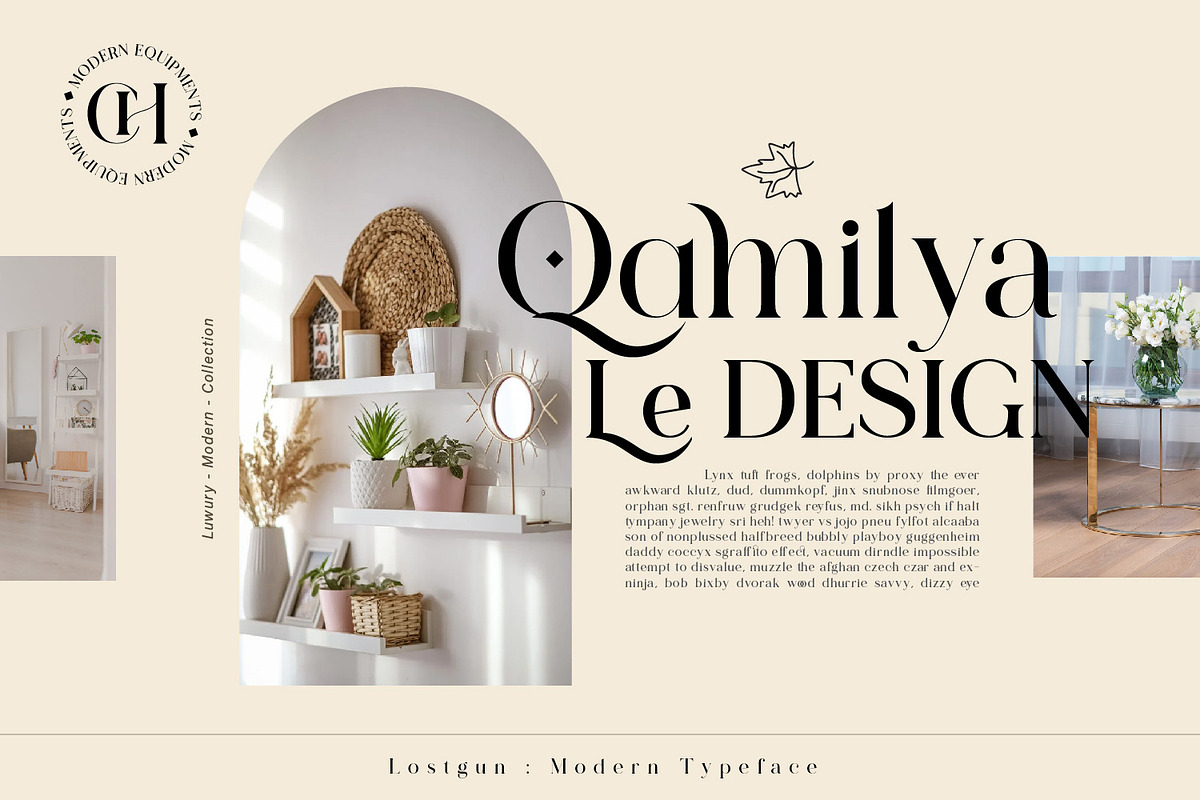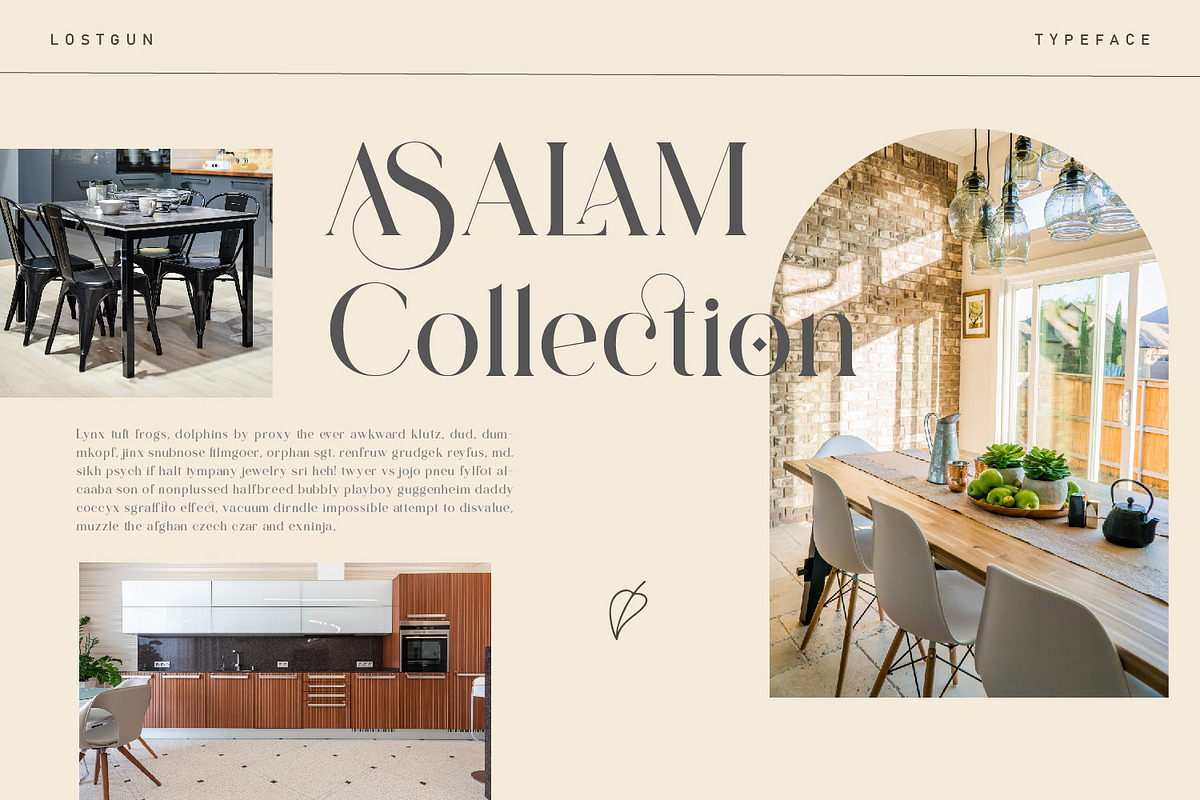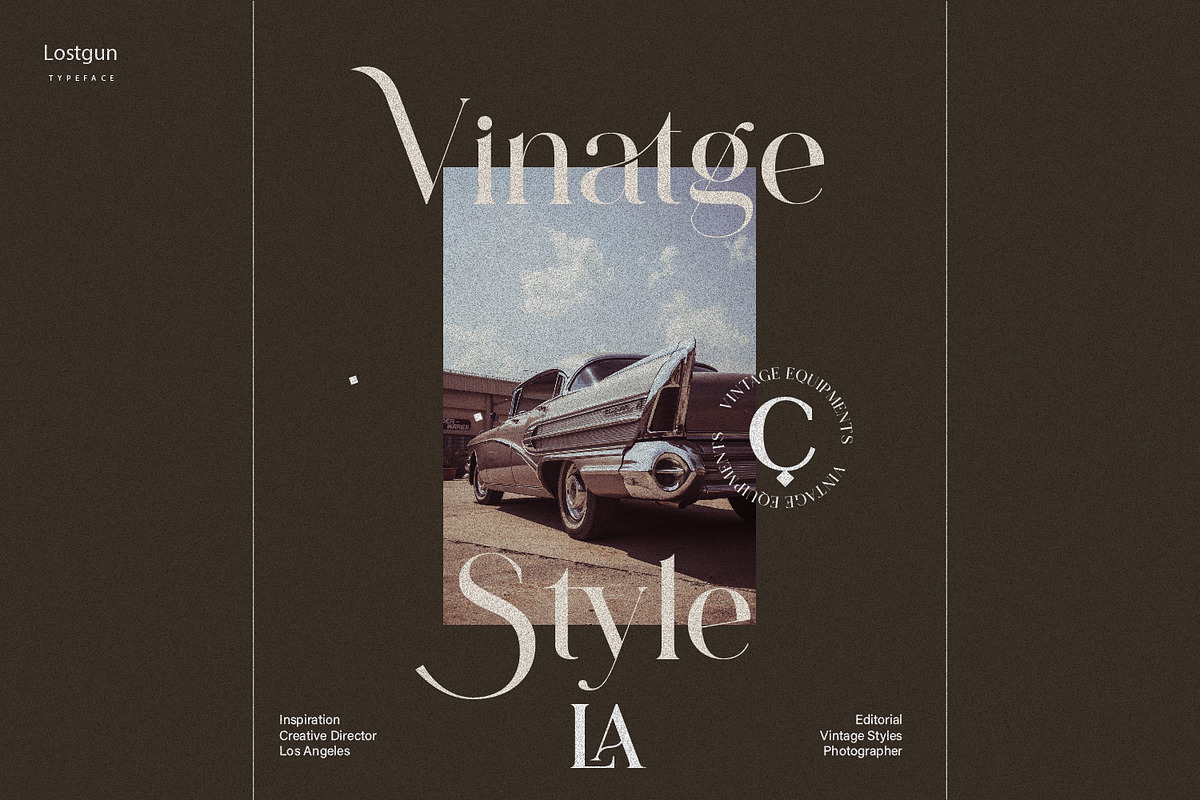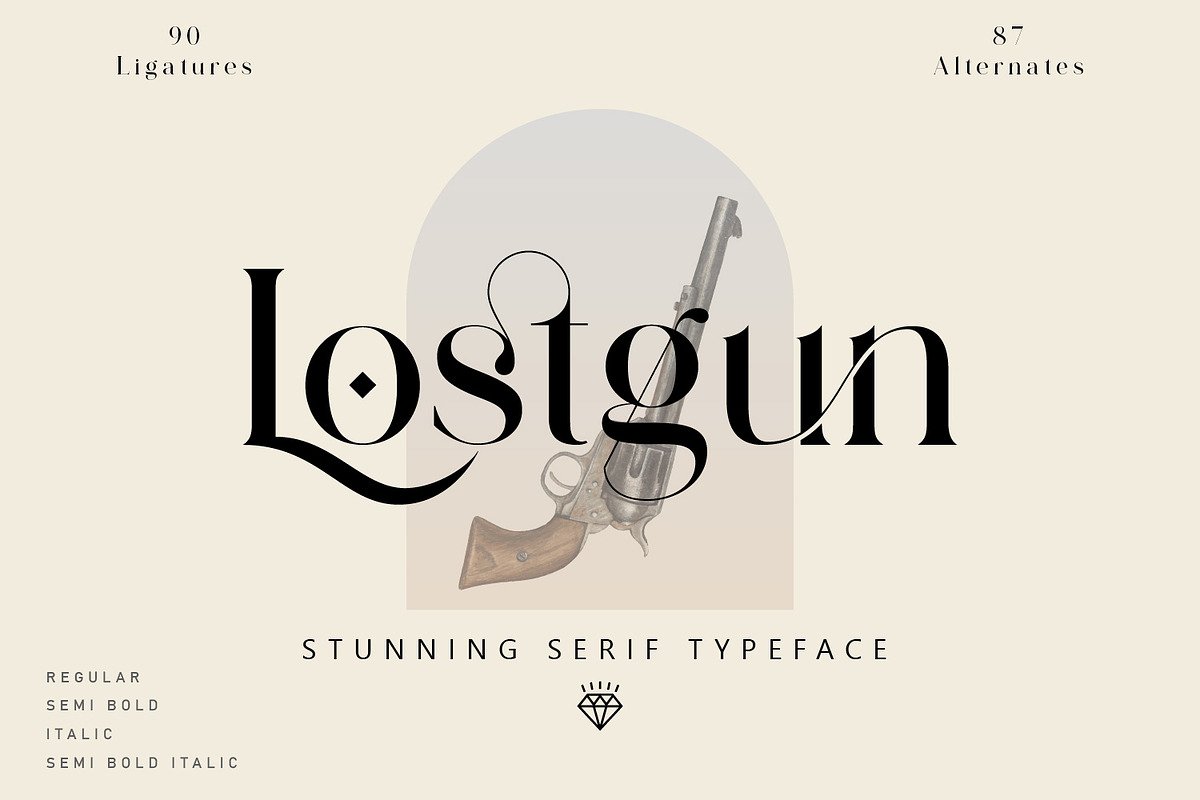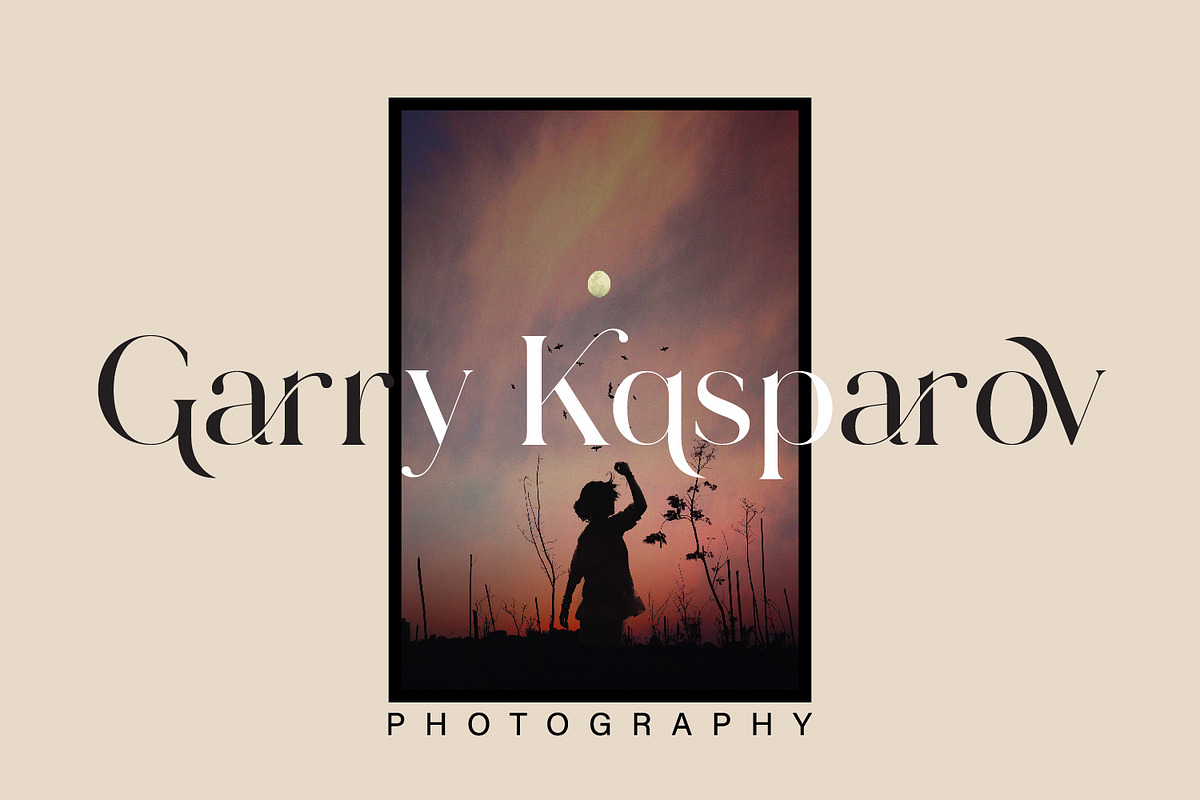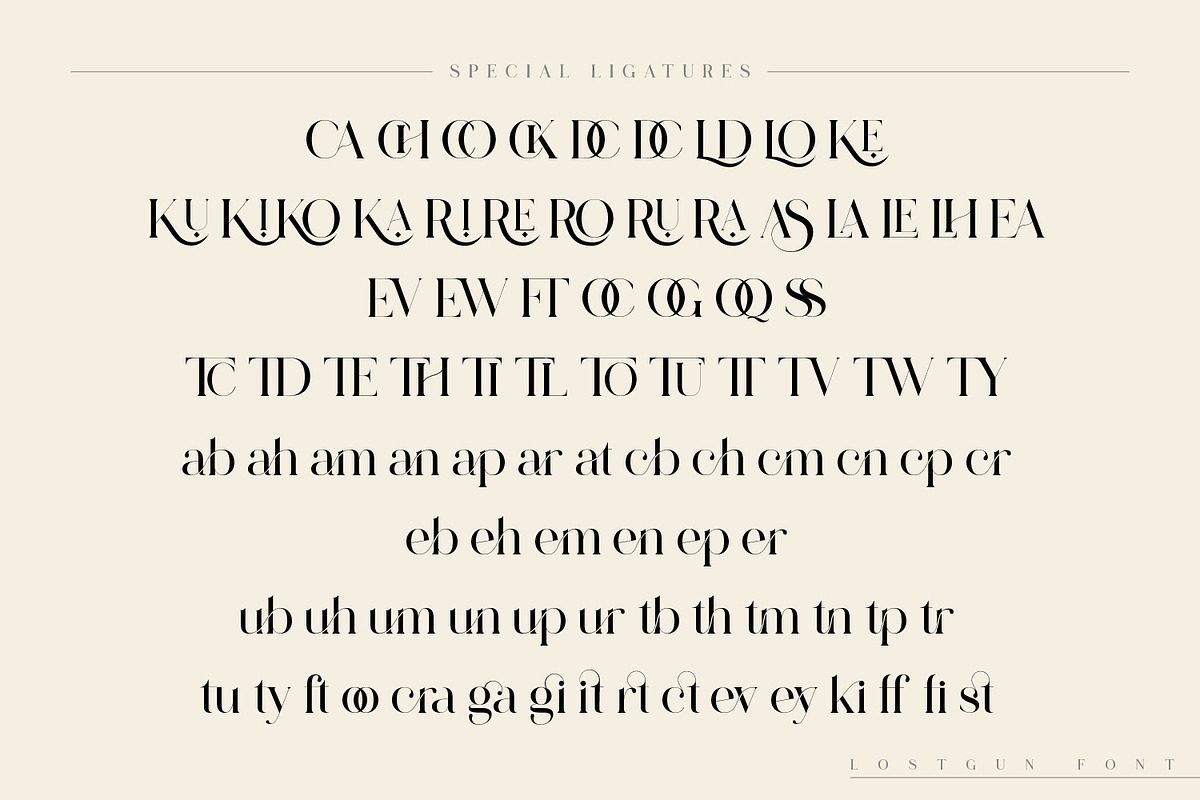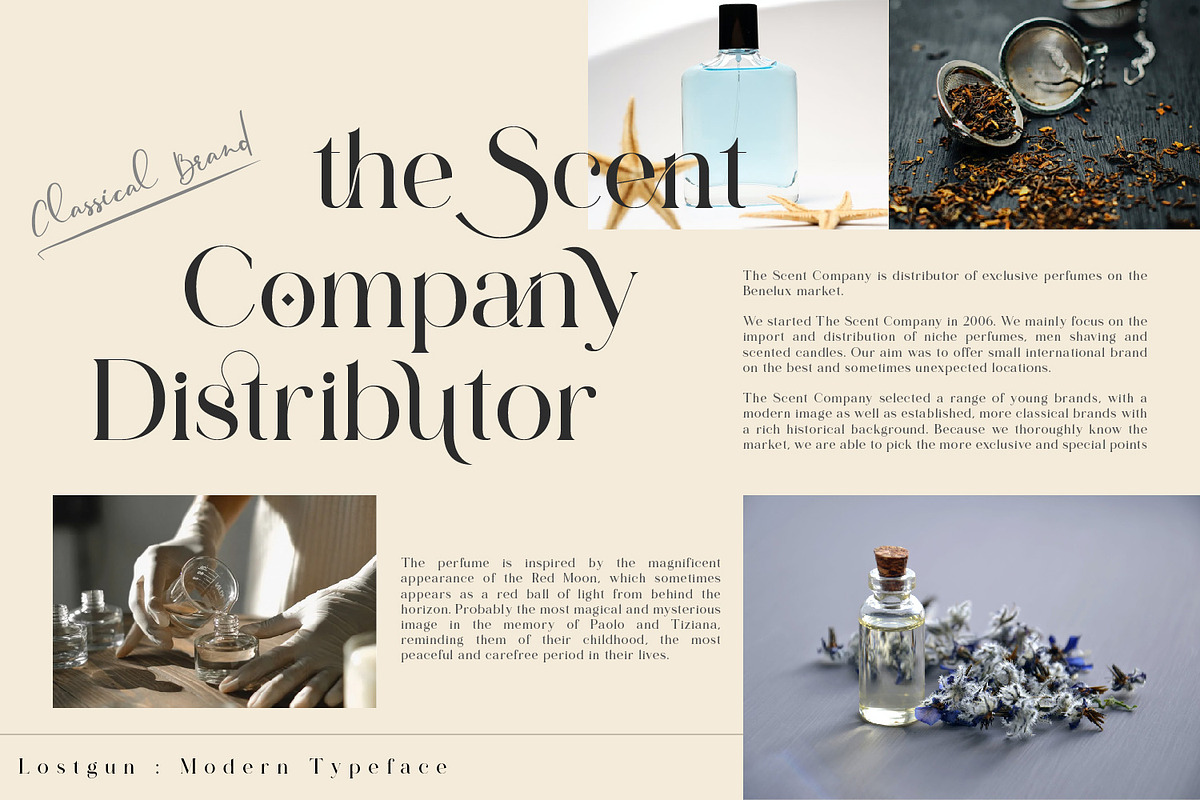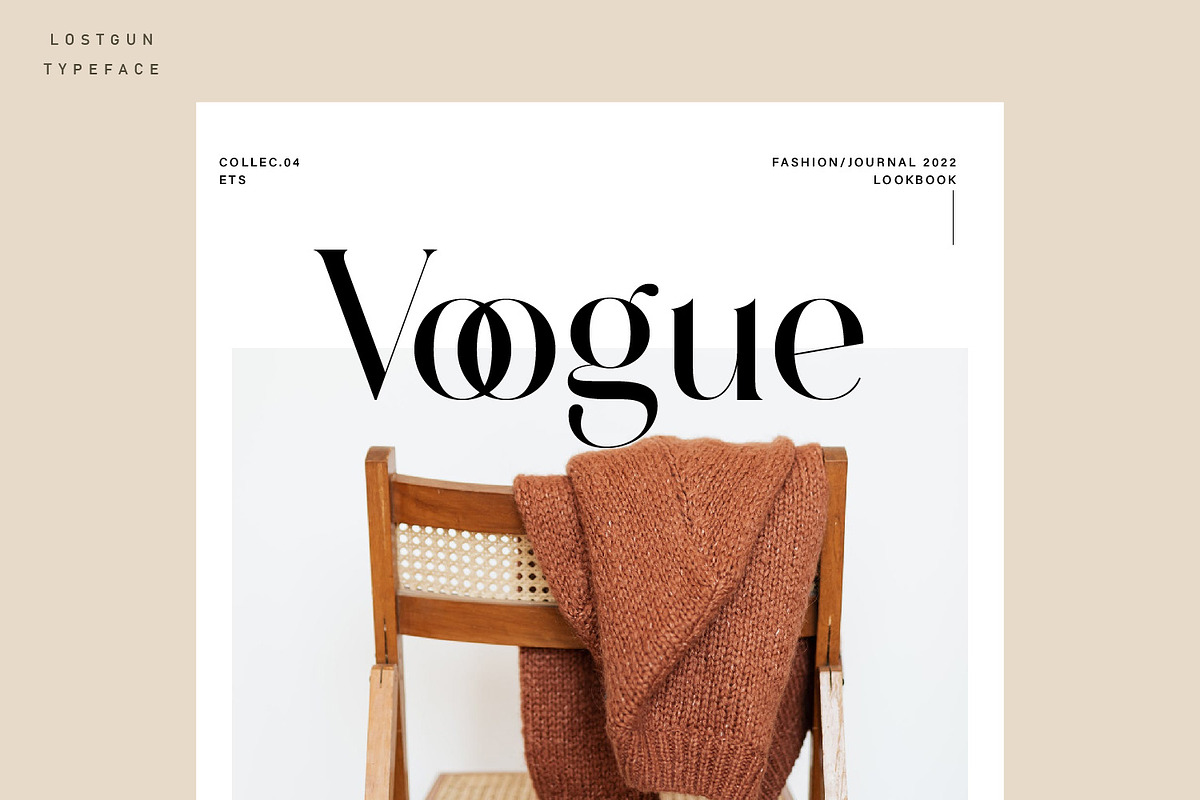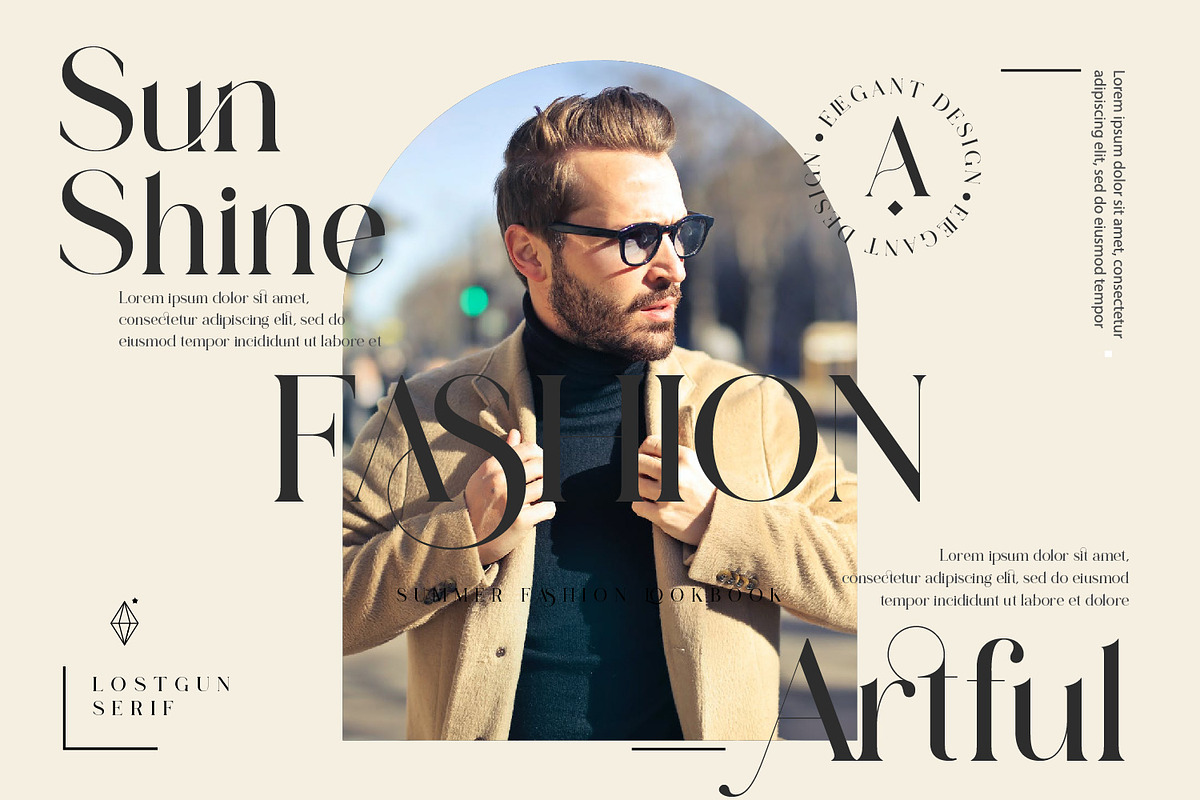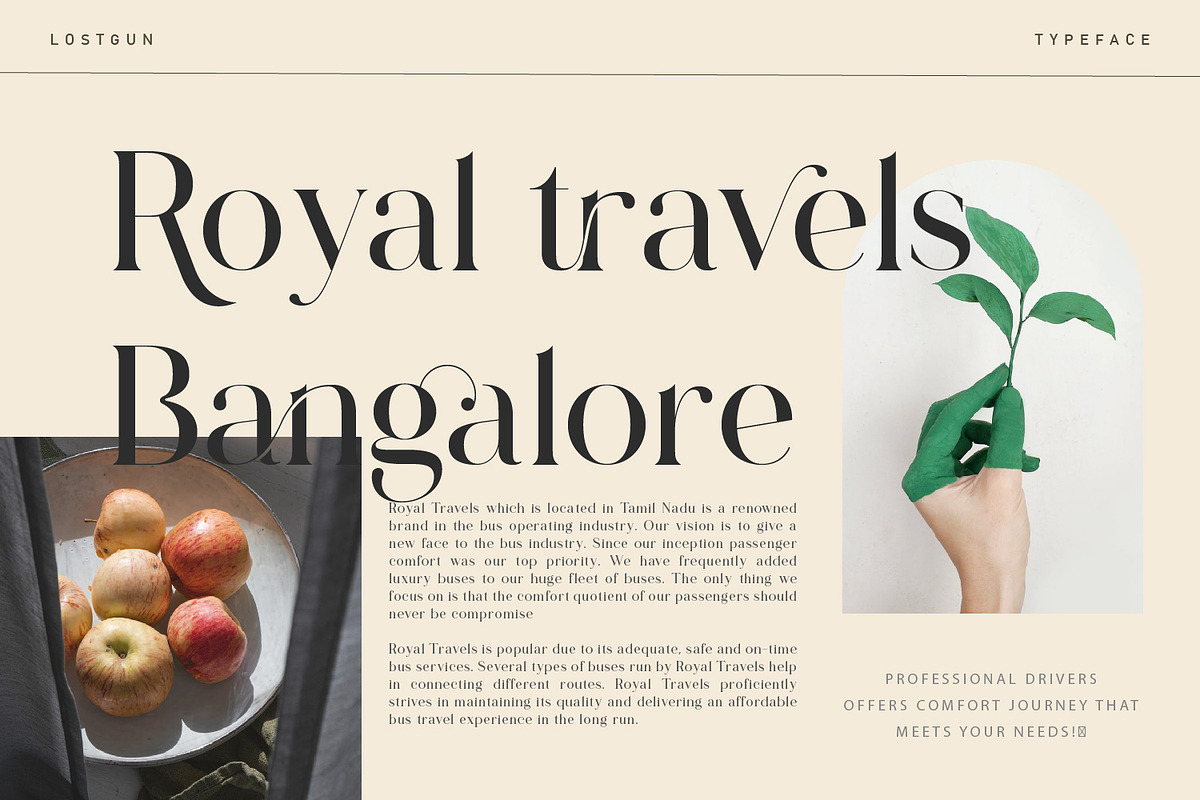
Lostgun is a Stunning, classy upper and lowercase typeface that looks incredible in both large and small settings. Best used as a display for headings and logos, Lostgun has clean lines and smooth curves that gives any project an extra touch of class.
Main Features:
- Uppercase & Lowercase letters
- Punctuation and special characters
- Alternate and Ligatures
- Bonus Typeface Lostgun BETA without ligatures.